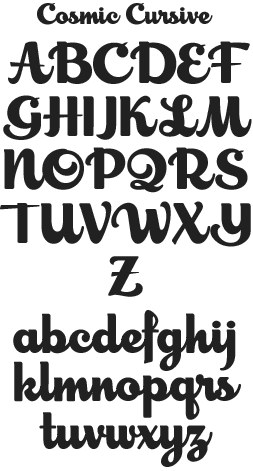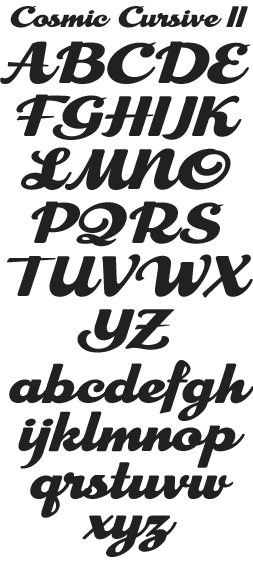
LHF Cosmic Cursive
Inspired by a 1940's "Century" record, this retro script includes 2 fonts: Cosmic Cursive and Cosmic Cursive 2.
Includes numbers, full punctuation & accents